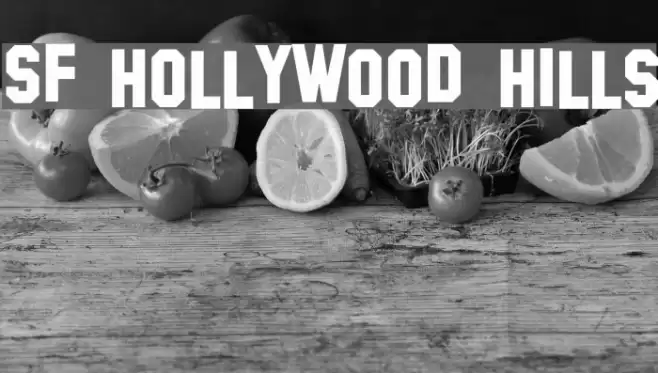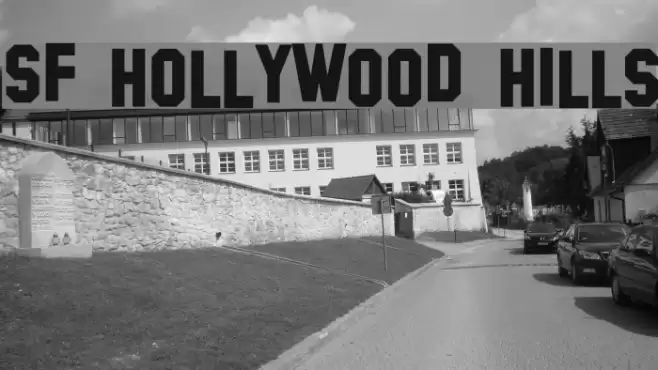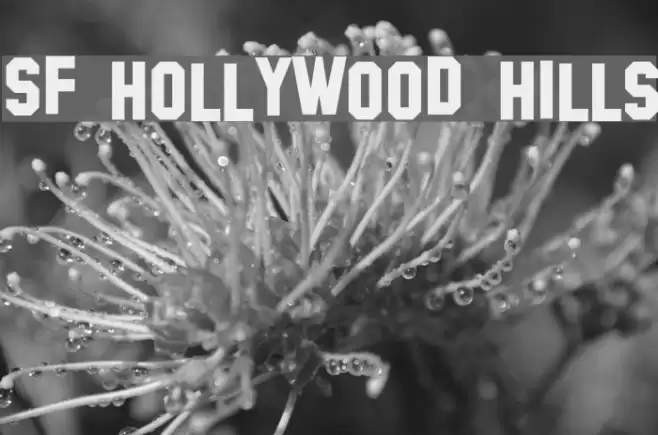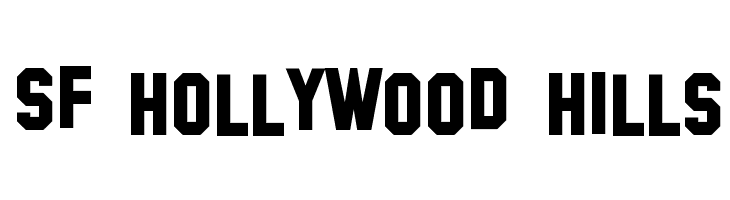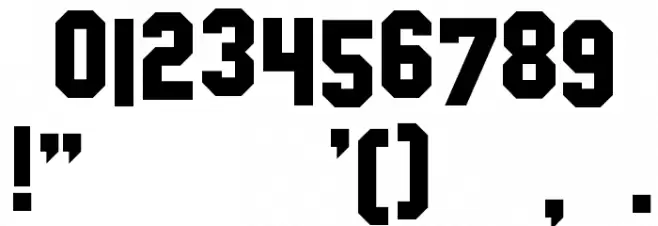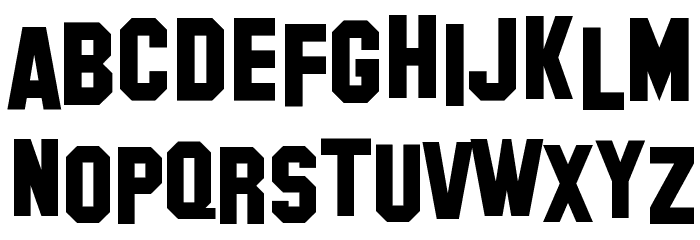
SF Hollywood Hills Font
SF Hollywood Hills Description
This font features a bold, geometric style with a strong presence. The characters are constructed with sharp angles and straight lines, giving it a modern and industrial feel. The uppercase and lowercase letters maintain a consistent height, contributing to a uniform appearance. The numerals and special characters follow the same design principles, ensuring a cohesive look across all glyphs. The font's boldness makes it ideal for creating impactful headlines and titles, while its geometric nature lends itself well to modern design projects.
A bold, geometric font with a modern and industrial style from Crazy fonts.
- Proposed Projects: Ideal for branding, posters, headlines, and modern design projects that require a strong visual impact.